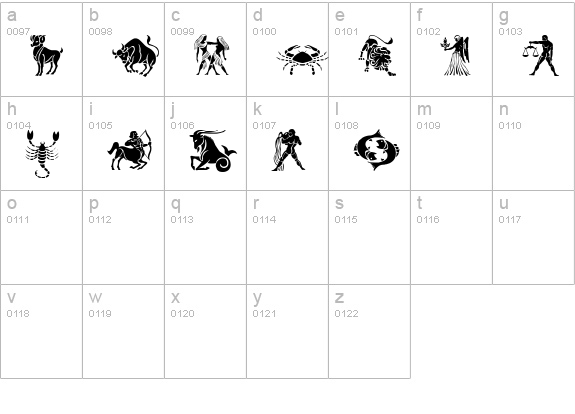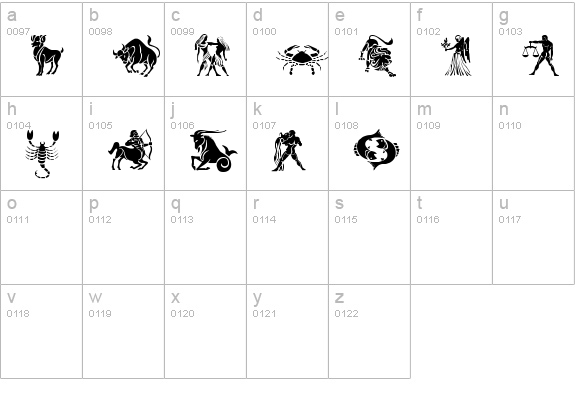
SLZodiacStencils Font Details
SLZodiacStencils font is a stunning display font that will add a touch of elegance and sophistication to any project. This font is perfect for creating eye-catching headlines, logo designs, or even unique social media posts. Featuring intricate stencil designs inspired by the zodiac signs, SLZodiacStencils font is a true work of art. Each letter is carefully crafted to showcase the beauty and symbolism of the zodiac, making it a truly unique addition to any designer's toolkit. One of the best features of SLZodiacStencils font is that it is completely free to download. This means that you can bring your creative vision to life without any additional cost. Whether you are a professional designer or just someone who loves experimenting with different fonts, SLZodiacStencils font is a must-have in your collection. To get your hands on this amazing font, simply visit FontsMarket.com and download it for free. With just a few clicks, you can start using SLZodiacStencils font in your projects and enjoy its stunning visual impact. Don't miss out on this incredible opportunity to elevate your designs with this one-of-a-kind font. In summary, SLZodiacStencils font is a captivating and versatile font that is sure to make a lasting impression. Its unique stencil designs inspired by the zodiac signs add a touch of mystique and intrigue to any project. Best of all, it is freely available for download at FontsMarket.com, making it accessible to everyone. So why wait? Start creating beautiful designs with SLZodiacStencils font today!